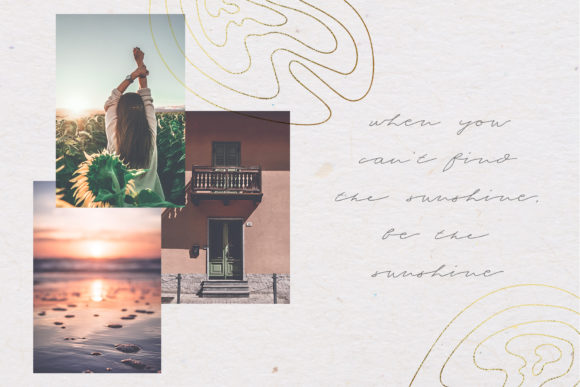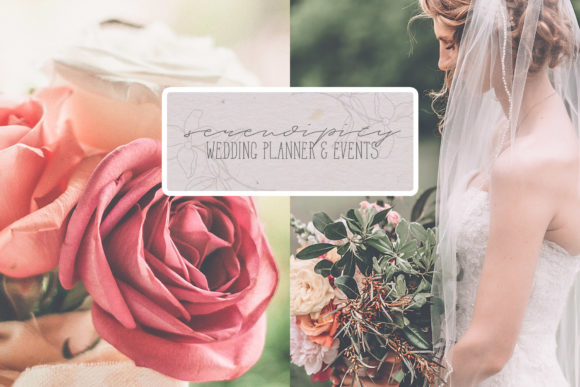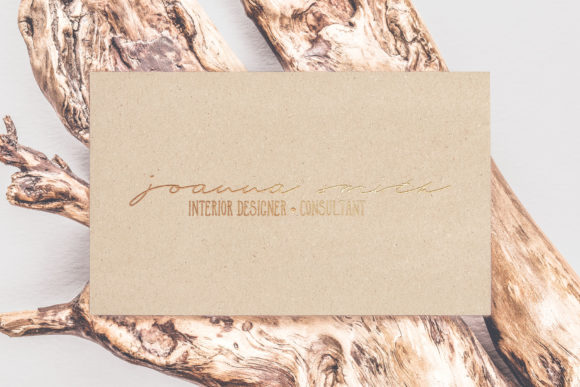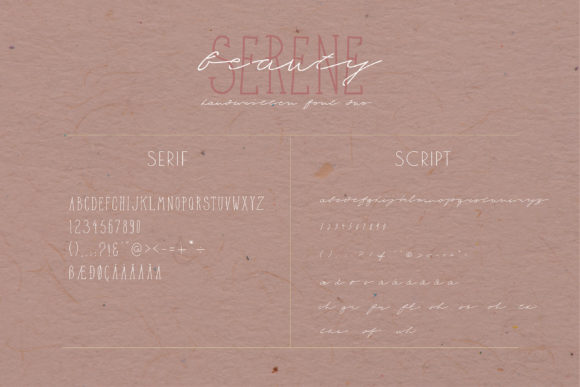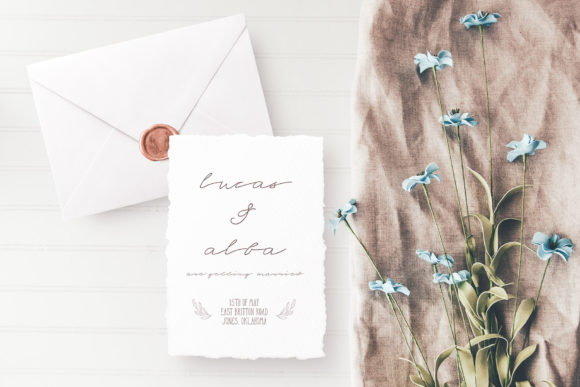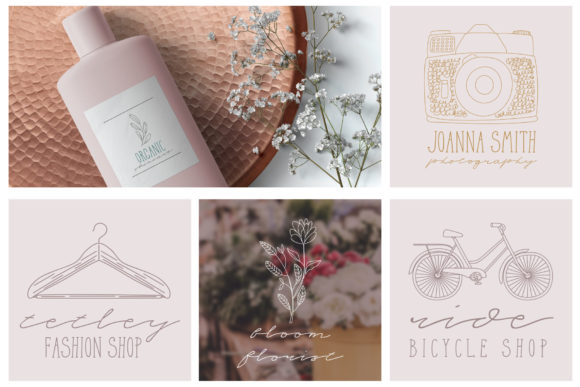
Introduction to Serene Beauty Font
Serene Beauty is a delicate duo font that includes a playful serif and a signature script.
It can be used for various purposes such as logos, wedding invitations, headings, t-shirts, letterhead, signage, labels, news, posters, badges and so much more .